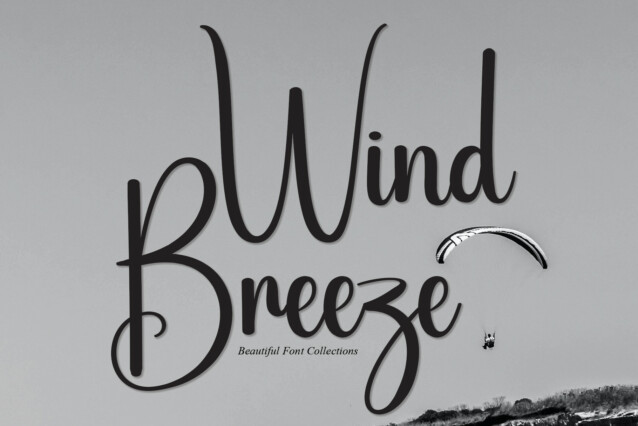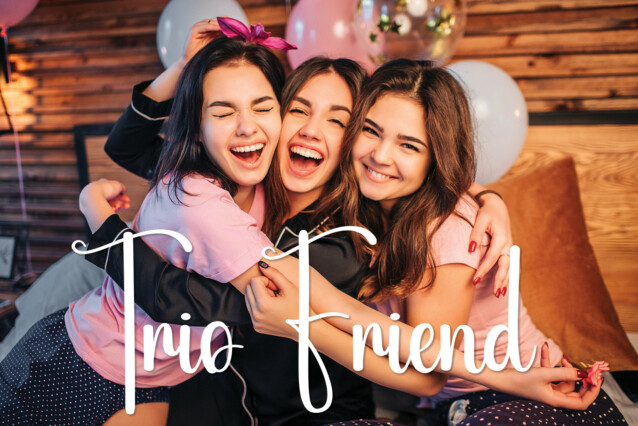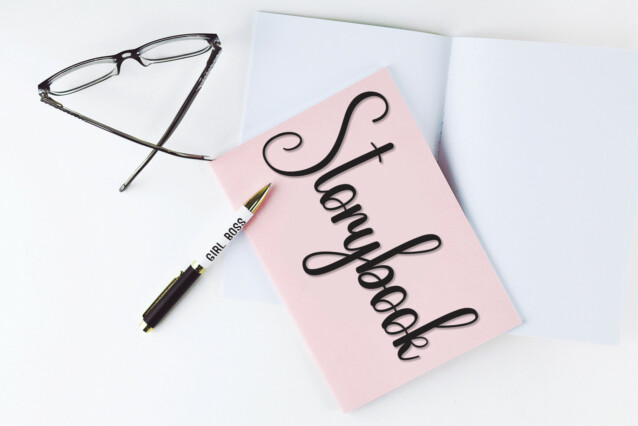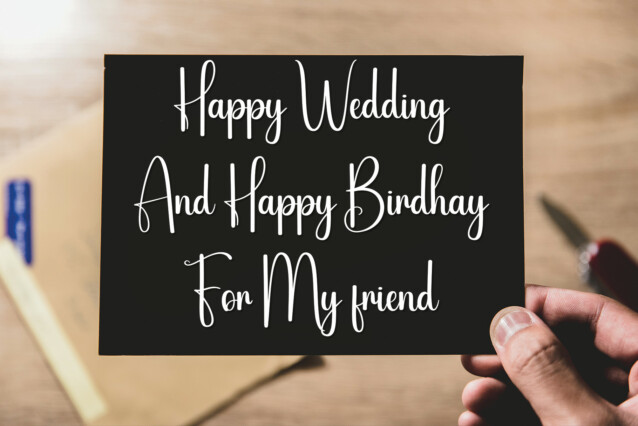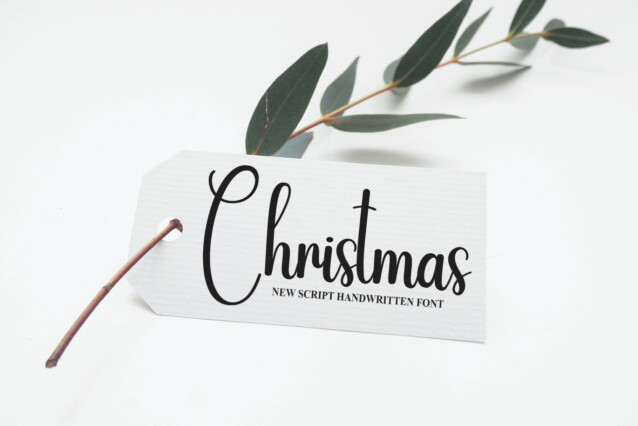
Wind Breeze Script Font
Wind Breeze Script Font is a casual and neat handwritten font. No matter the topic, this font will be an incredible asset to your fonts’ library, as it has the potential to elevate any creation.